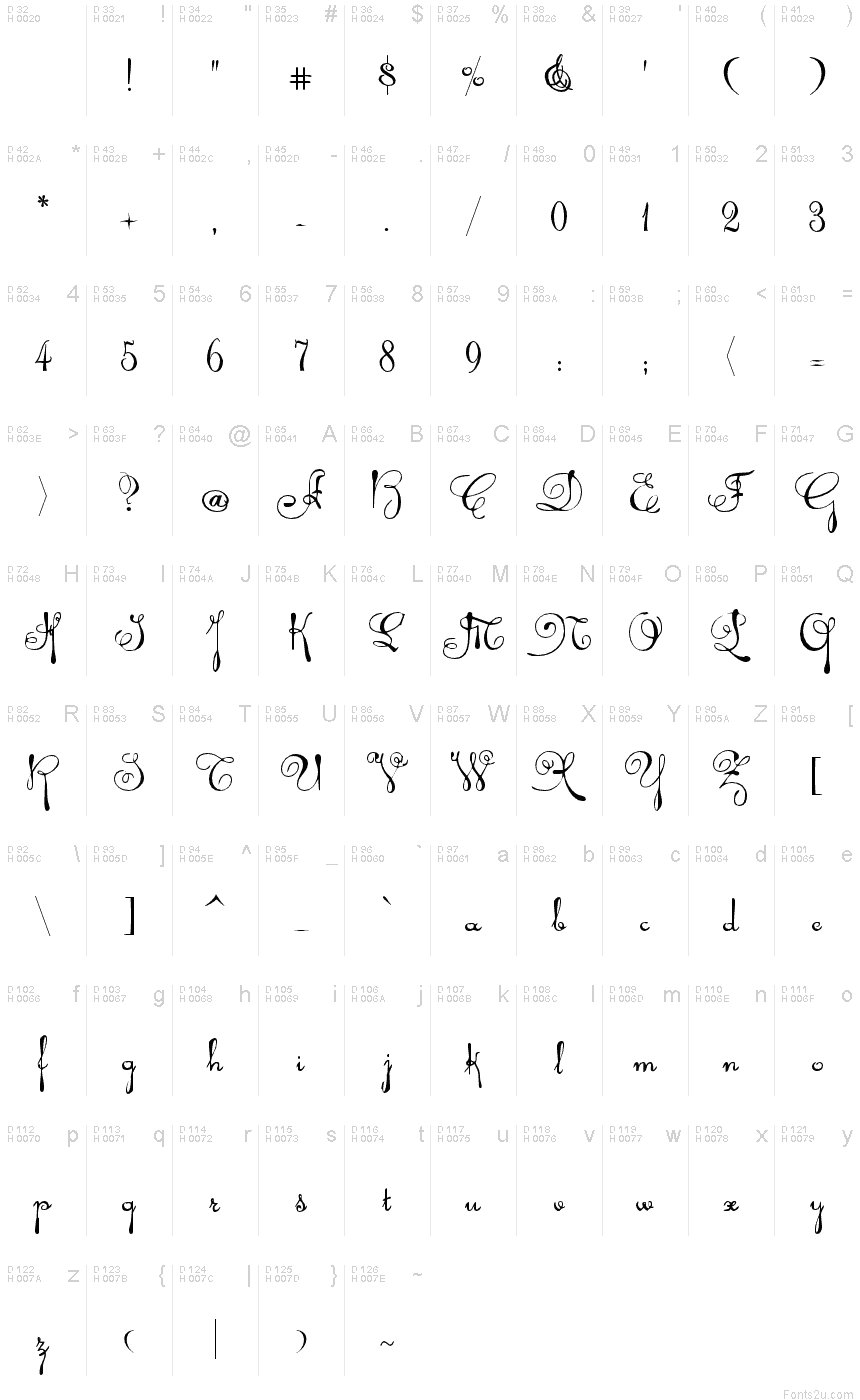
Rhalina by Daniel Zadorozny of Iconian Fonts is a free calligraphic script with extravagant loops and sharply changing stroke widths. Tall, sweeping forms give the lettering a theatrical silhouette, and compact joins create a lively, tangled texture.
It can lend romantic fashion branding and whimsical children's publishing the same sense of hand-drawn spectacle. The curls also suit invitations, music posters, and boutique packaging. In illustrated work, the long flourishes can echo ribbons, vines, or curling strands of hair.